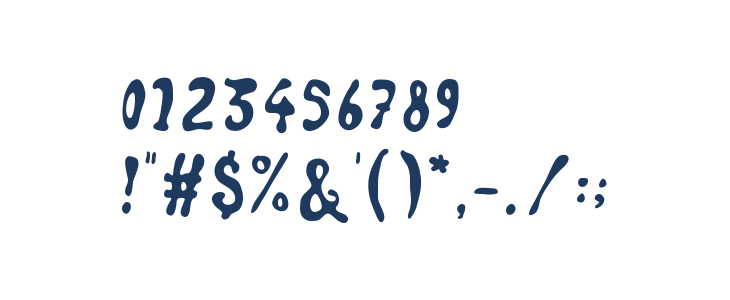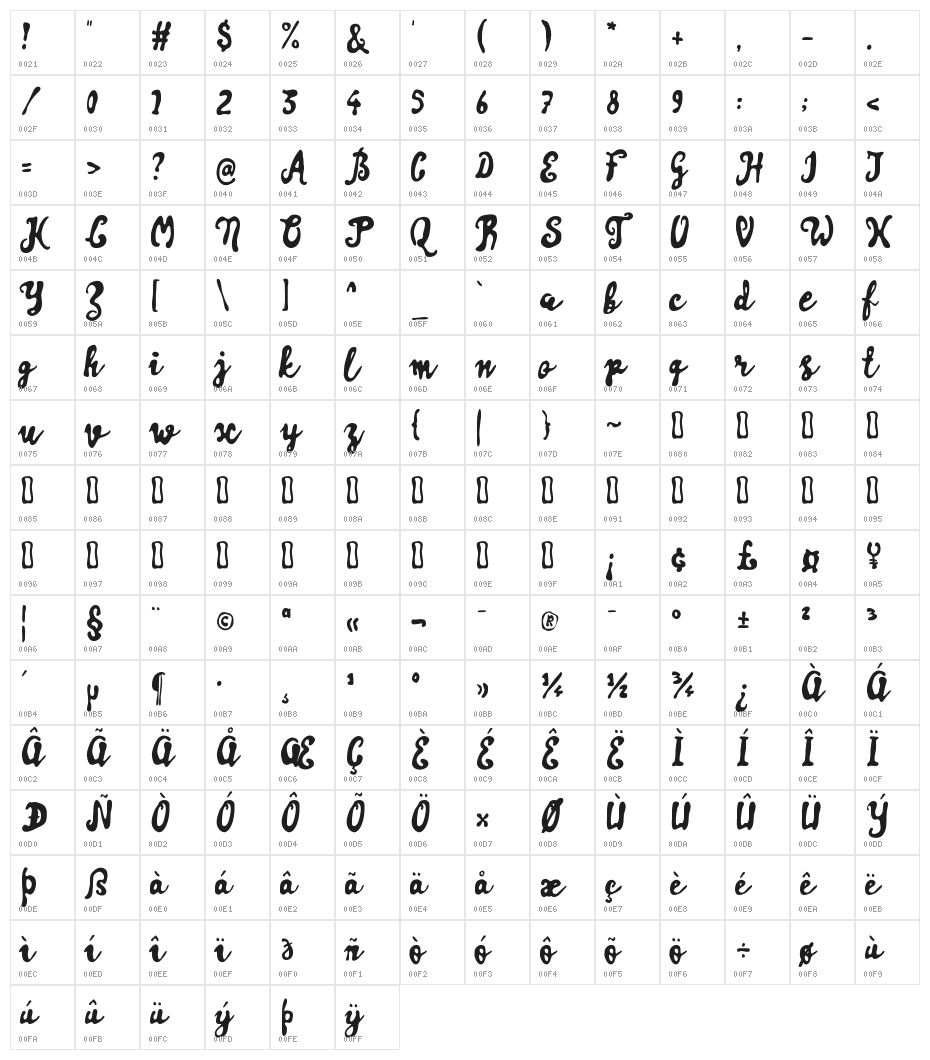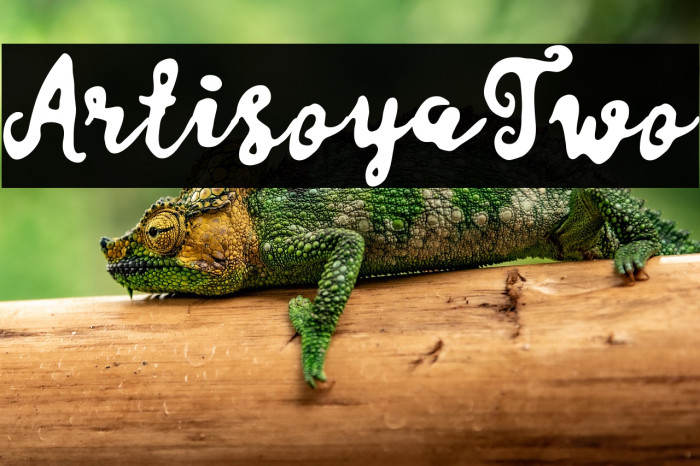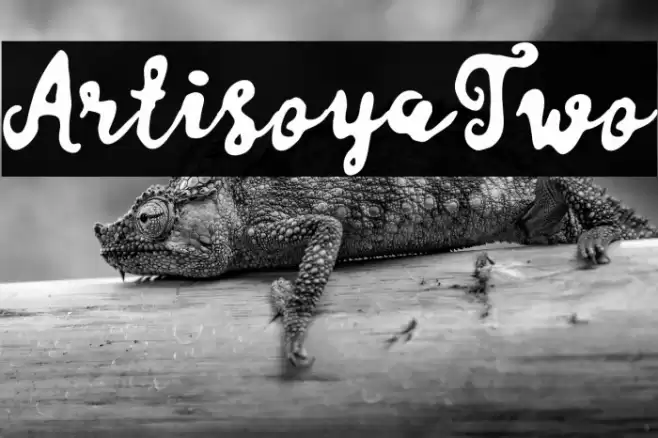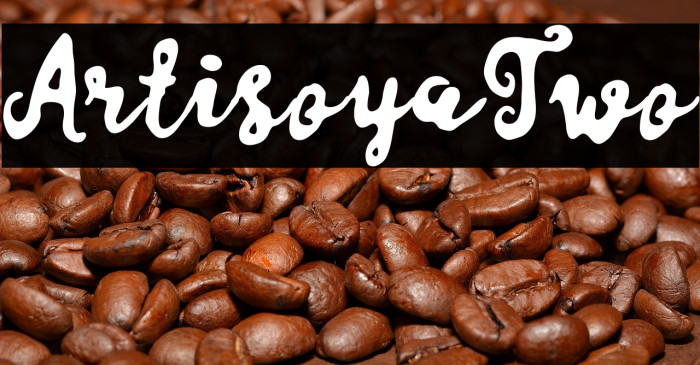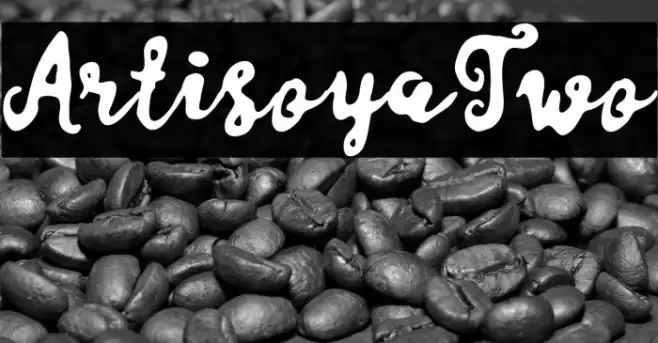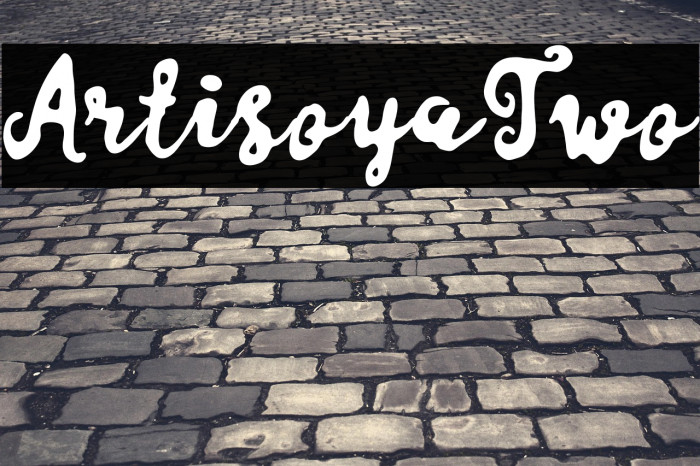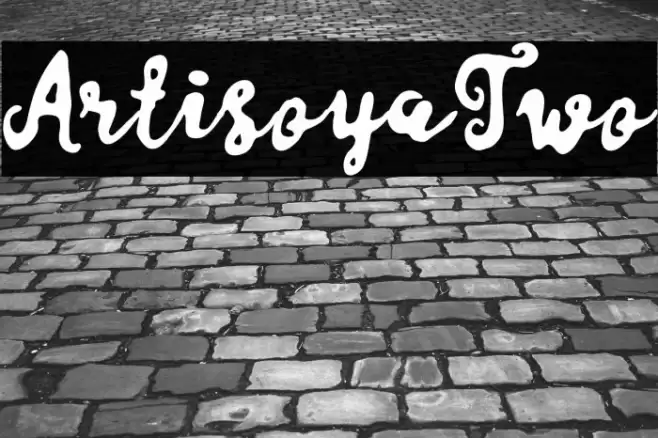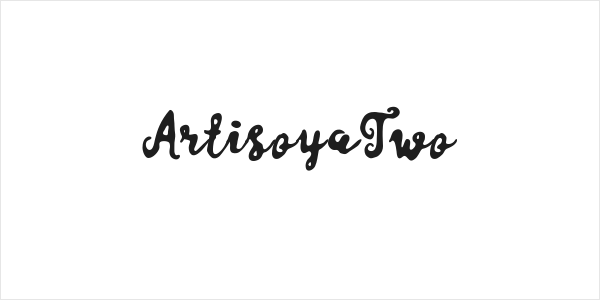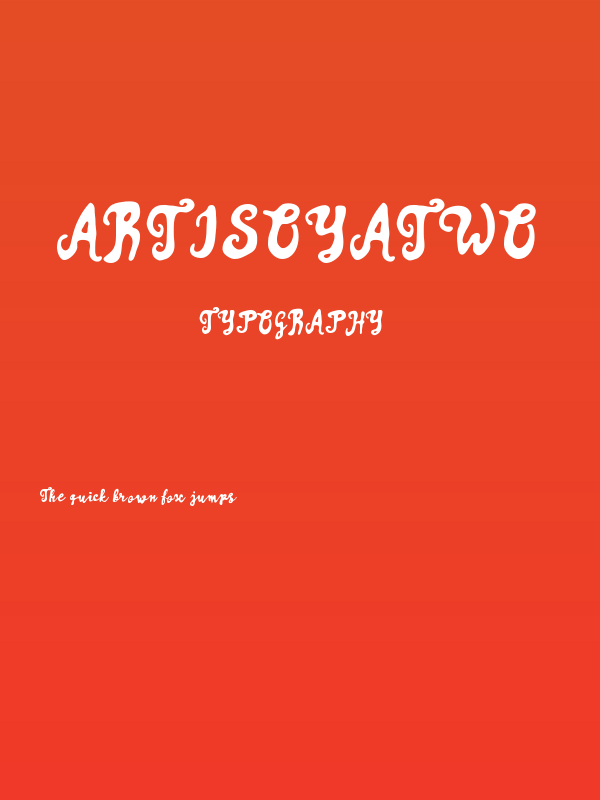
ArtisoyaTwo Font
ArtisoyaTwo Description
This font features a bold, playful script style with a strong presence. Each character is crafted with a thick, fluid stroke, giving it a lively and dynamic appearance. The letters are interconnected with smooth curves and loops, creating a sense of movement and energy. The uppercase letters are slightly larger and more pronounced, while the lowercase letters maintain a consistent flow. Numbers and special characters are designed to match the overall aesthetic, ensuring a cohesive look. The font's unique style makes it stand out, ideal for creative and expressive projects.